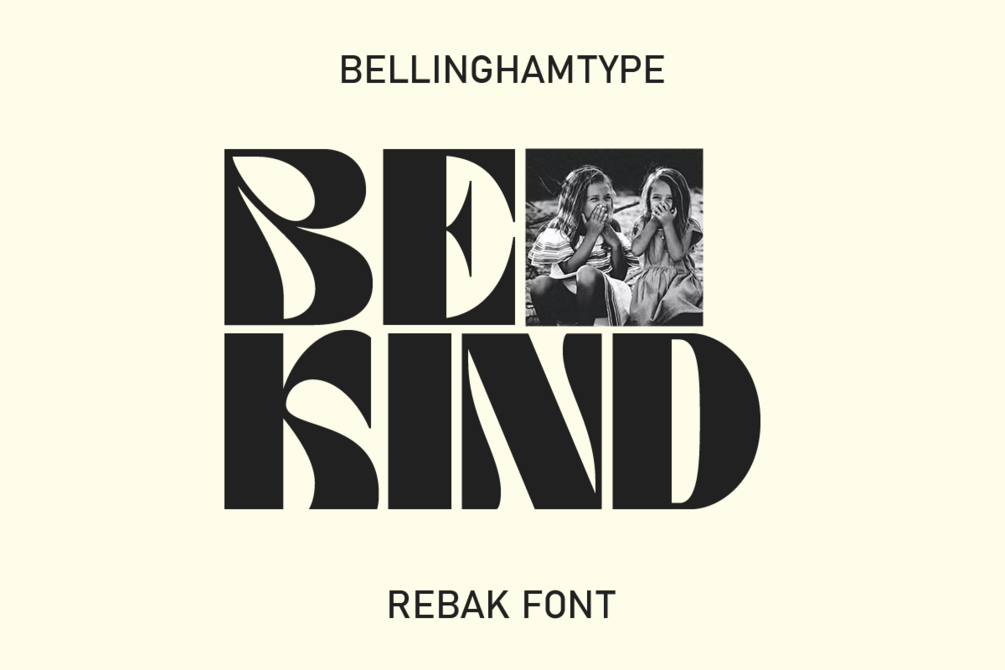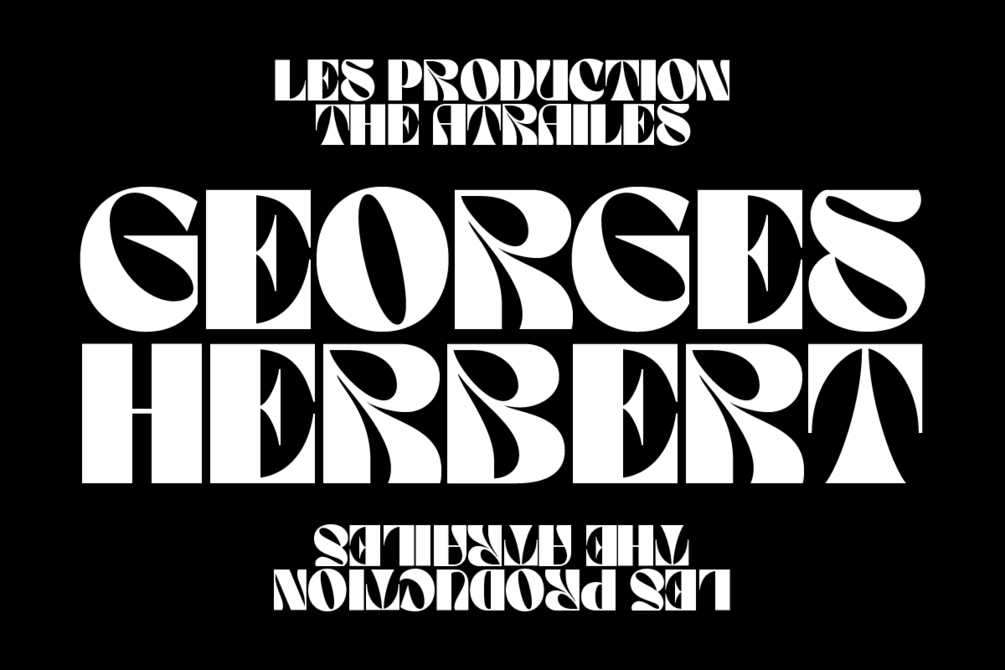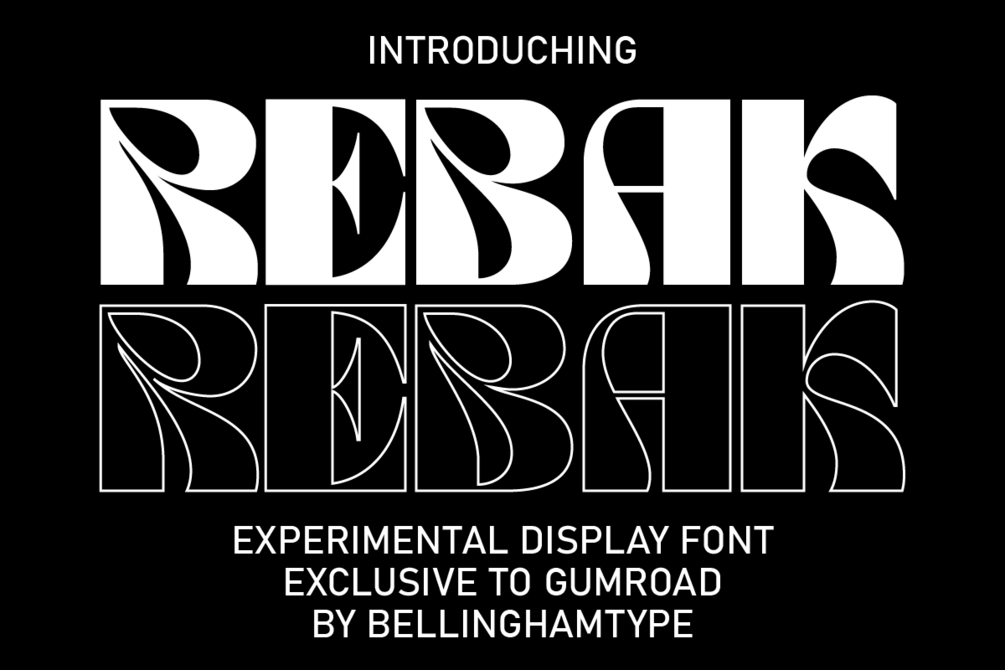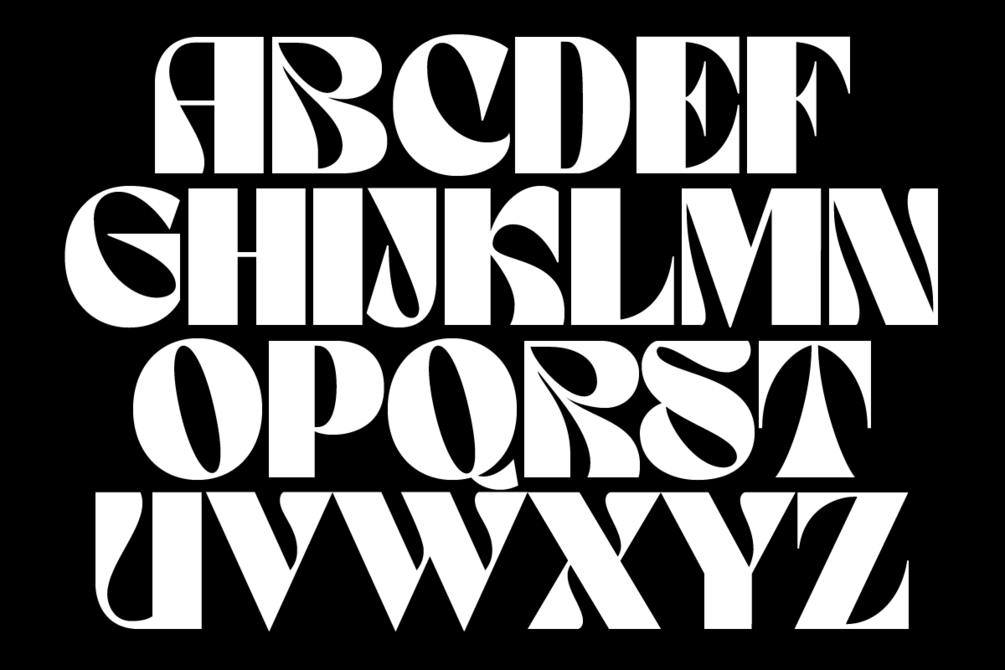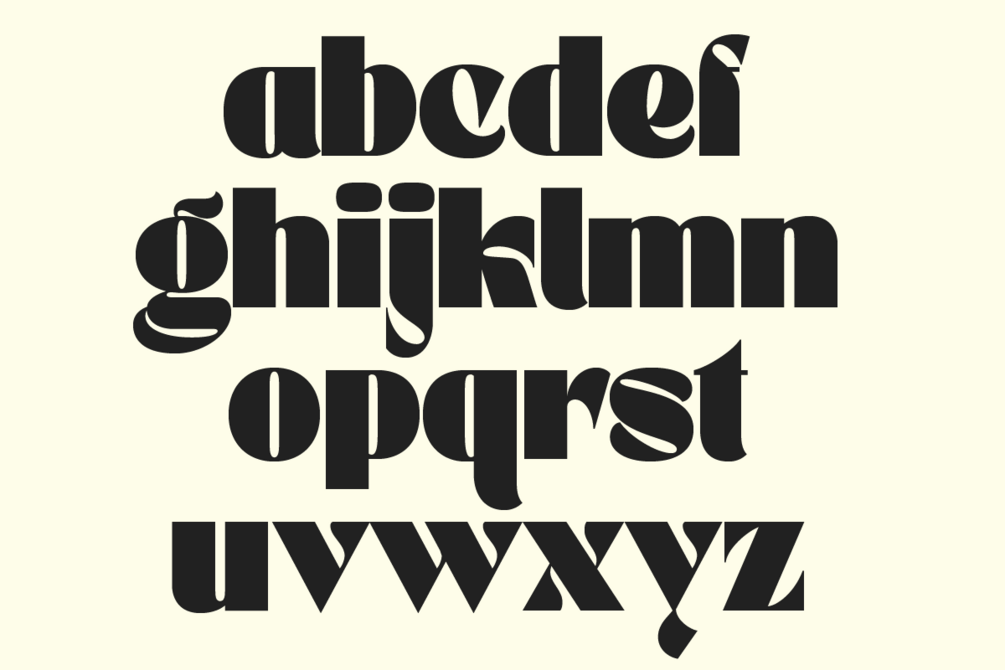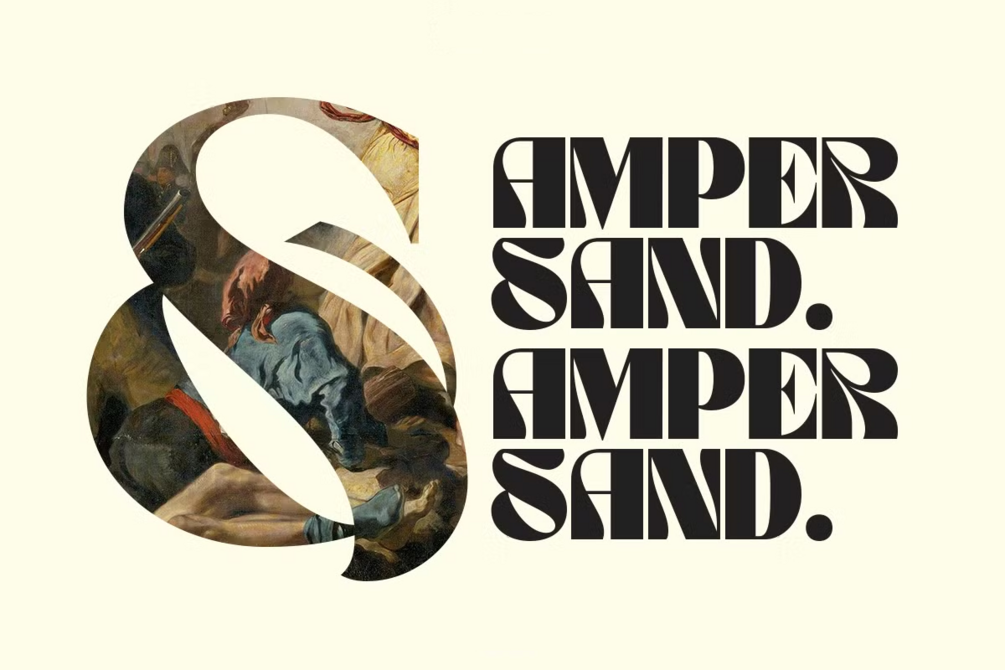
Rebak experimental Display Font
Rebak is an experimental display font with bold geometric shapes, ideal for posters, logos, and modern visual projects.